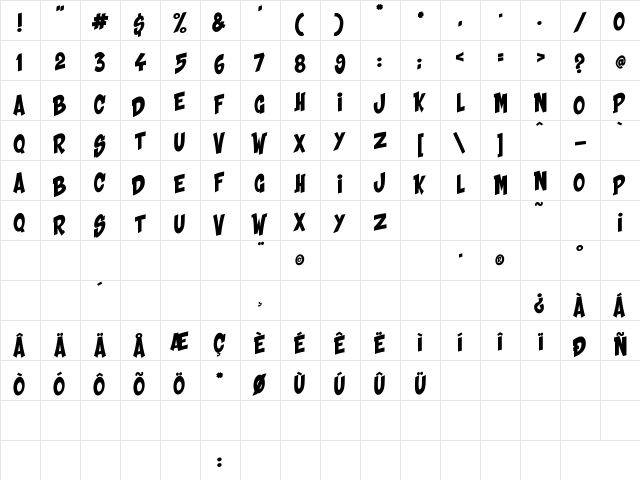
Shaka Pow Upright Regular
Design Context for Shaka Pow Upright Typeface
Shaka Pow Upright is a composed and adaptable typeface that performs quietly and consistently across a wide range of design contexts.
Pro Tip: Use Shaka Pow Upright in both headline and body roles to test its range before committing to a single application.